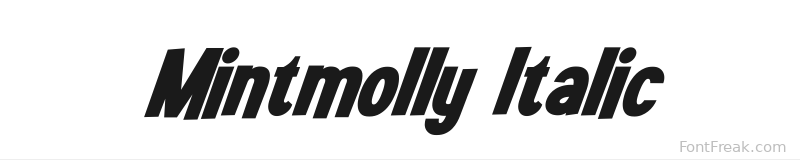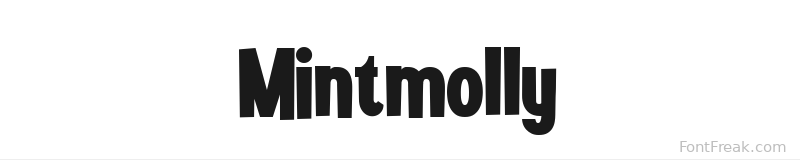
Mintmolly Italic
Mintmolly
Mintmolly Italic, designed by Kong Font, is a striking display typeface that falls under the sans-serif category. This font features a modern and dynamic aesthetic, characterized by its bold stroke weight and a moderate contrast that gives it a distinctive presence. The italic style adds an element of elegance and fluidity, making it suitable for various design applications. The spacing is well-balanced, allowing for readability while maintaining a contemporary flair.
Ideal for use in wedding invitations, Mintmolly Italic brings a touch of sophistication to any romantic design. Its unique character makes it a fantastic choice for movie posters, where it can convey excitement and intrigue. Additionally, restaurant menus will benefit from its stylish yet approachable design, attracting diners with its inviting presence. Graphic designers and content creators will find this font particularly useful for branding projects, social media graphics, and promotional materials, as it effectively captures attention without overwhelming the viewer.
The target audience for Mintmolly Italic includes graphic designers, small business owners, and creatives who seek a font that combines both modernity and elegance. This font is not just visually appealing but also versatile, making it an excellent choice for various projects across different industries.
What sets the Mintmolly Italic font apart is its ability to maintain a playful yet professional demeanor, making it suitable for both formal and casual contexts. Its unique design elements ensure that it stands out in a crowded marketplace, offering users an opportunity to elevate their designs. For those interested, the Mintmolly Italic font free download is an excellent opportunity to incorporate this stylish typeface into their creative toolkit.